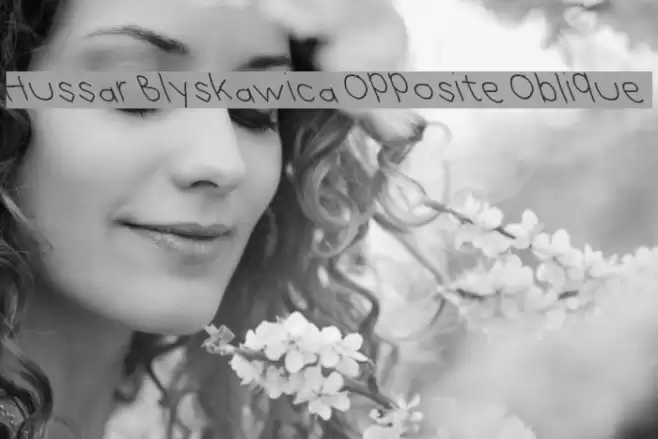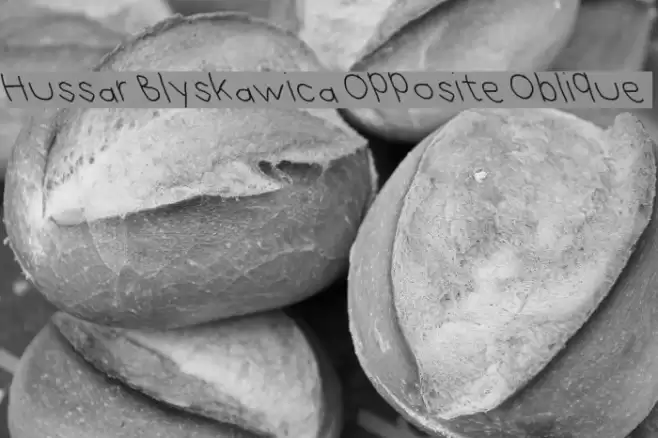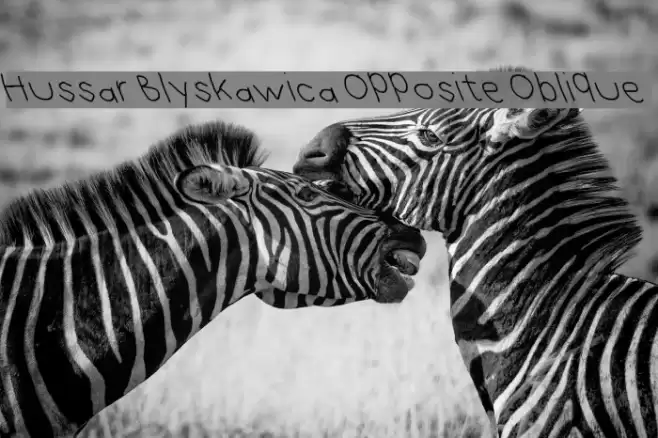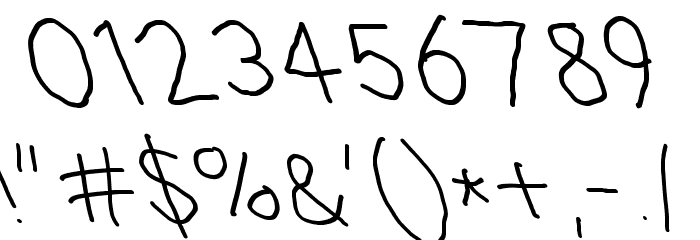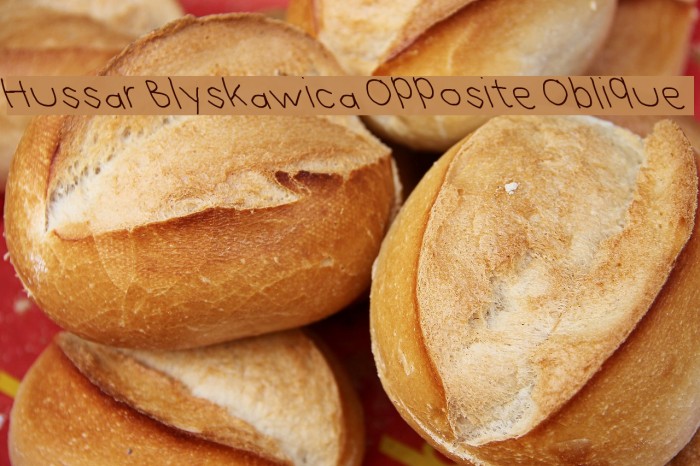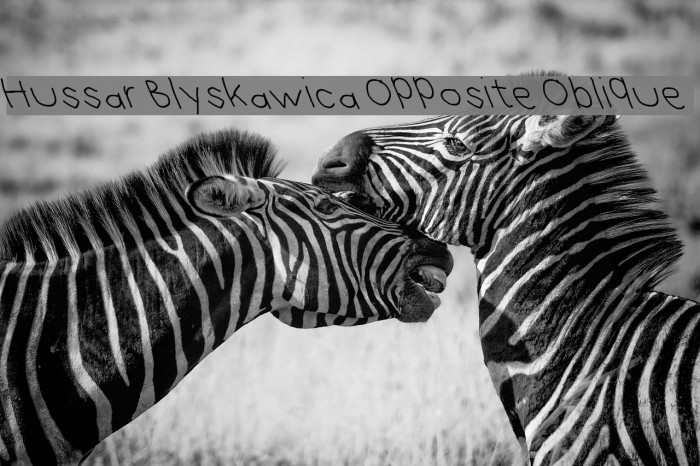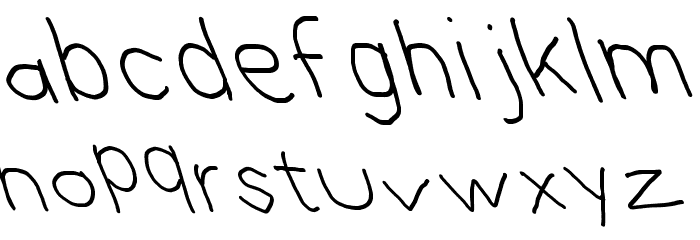
Hussar Blyskawica Opposite Oblique Font
Hussar Blyskawica Opposite Oblique Description
This font features a playful and informal handwritten style, characterized by its uneven strokes and slightly tilted appearance. The letters have a casual, organic feel, with varying line thickness that adds to its charm. The uppercase and lowercase letters maintain a consistent style, while the numbers and special characters are crafted to match the overall aesthetic. This font's unique personality makes it stand out, offering a sense of individuality and creativity.
A playful, handwritten font with uneven strokes and a casual style from Uncategorized fonts.
- Proposed Projects: Ideal for creative projects such as greeting cards, children's books, personal blogs, and informal branding materials.
- Overall Style: Casual
- Use Case: Headlines, Informal text, Creative projects